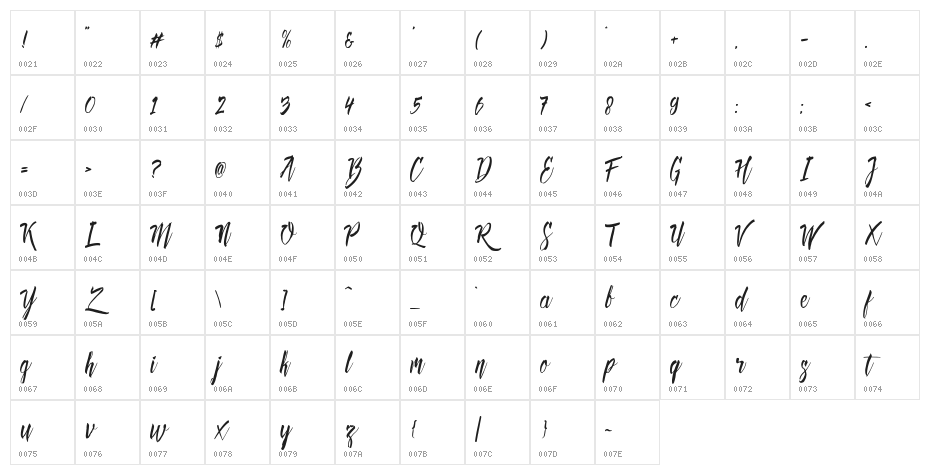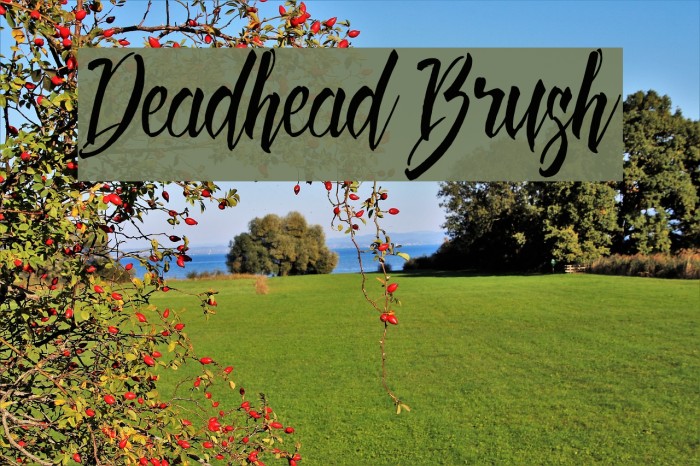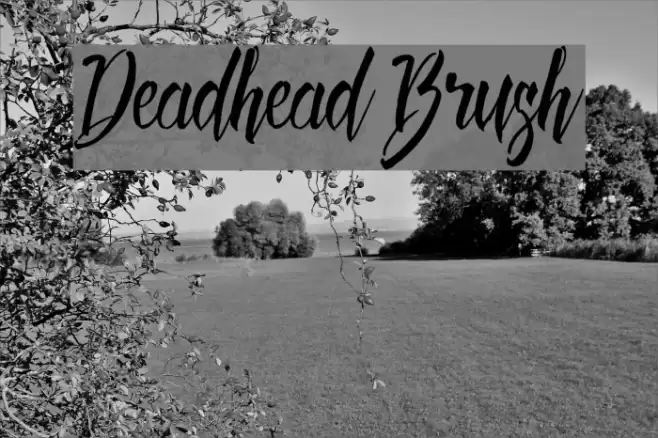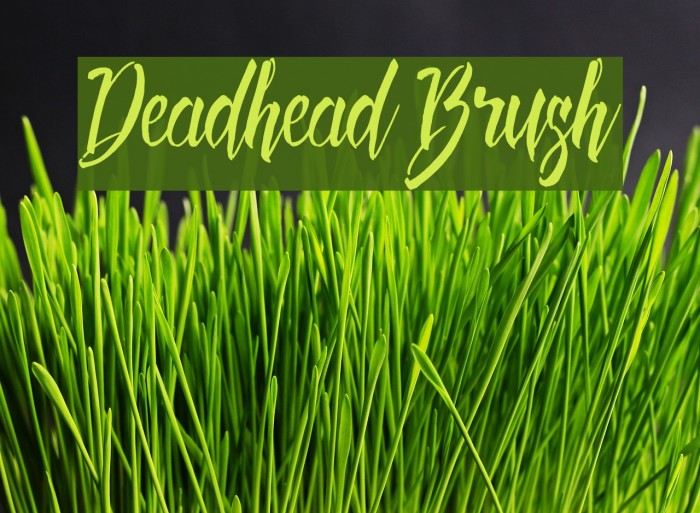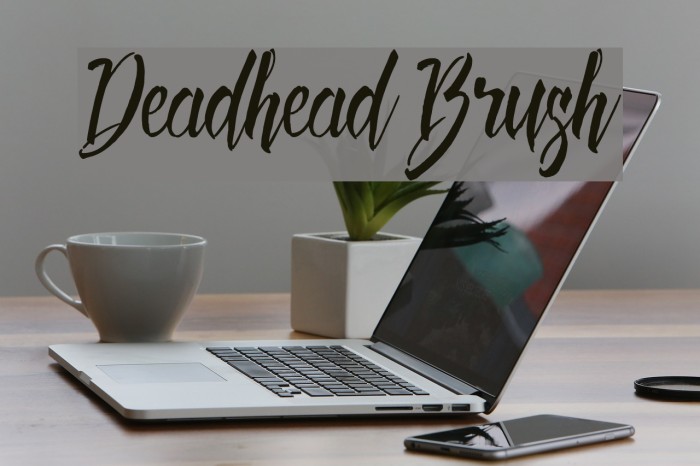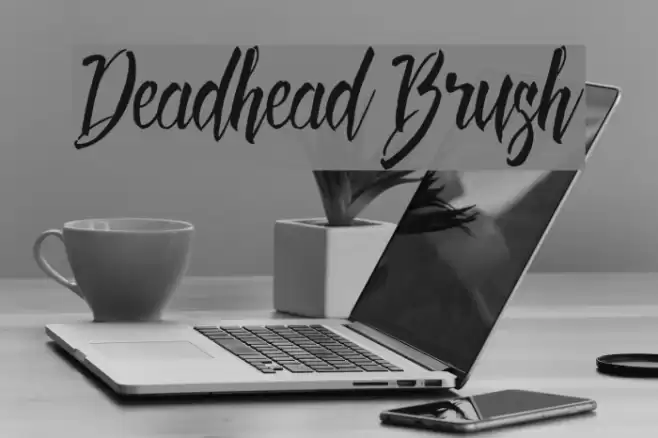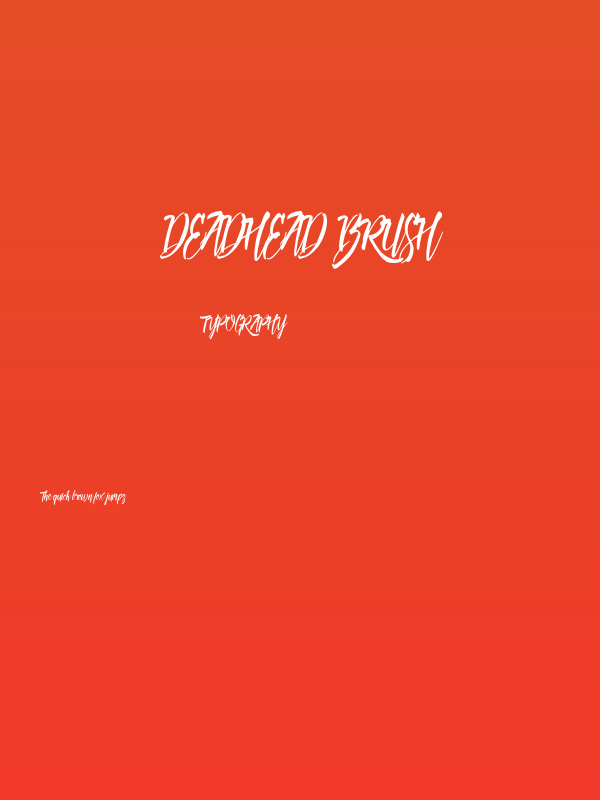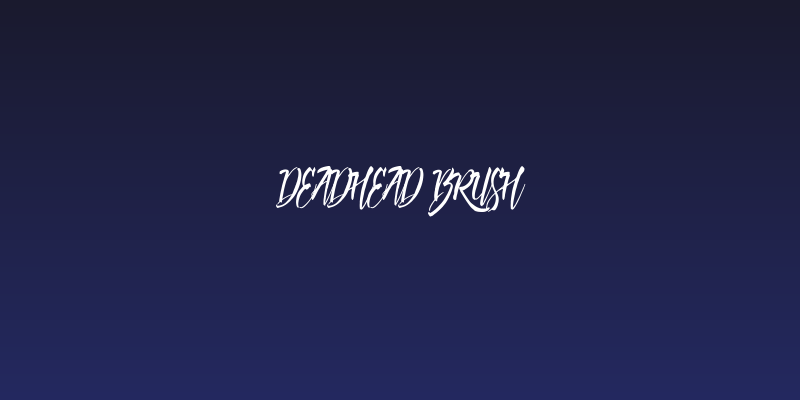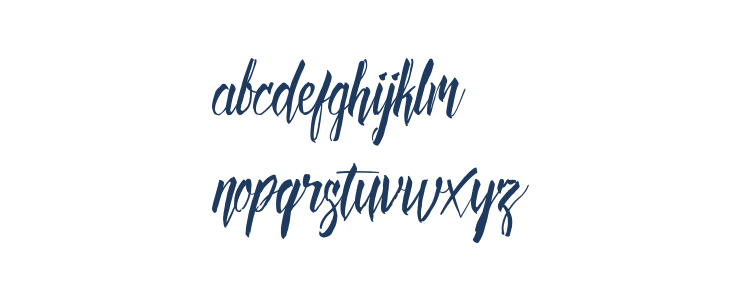
Deadhead Brush Font
Deadhead Brush Description
This font features a dynamic and energetic brush script style, characterized by its bold and fluid strokes. The letters exhibit a sense of movement and spontaneity, with varying thickness that adds a lively and artistic flair. The uppercase letters are particularly striking, with elongated and sweeping lines that create a sense of drama and expression. The lowercase letters maintain a consistent style, offering a harmonious flow that complements the uppercase. Numbers and special characters are crafted with the same attention to detail, ensuring a cohesive look across all elements. This font's unique style makes it stand out, perfect for projects that require a touch of creativity and personality.
| Proposed Projects | Ideal for branding, posters, invitations, and any design needing an artistic touch. |